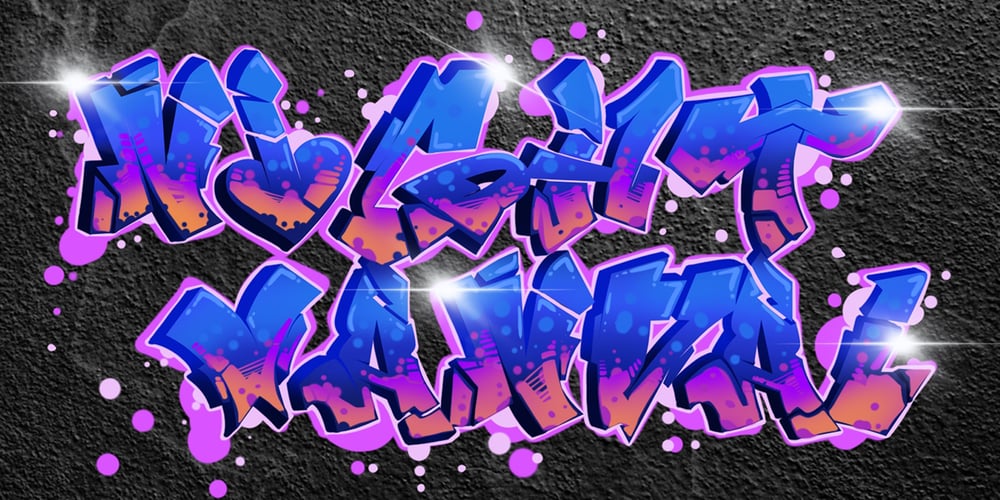
NIghtvandals
NIghtvandals font
NIghtvandals Font Family was designed by Sipanji and published by Sipanji21. NIghtvandals contains 1 styles and family package options. Night Vandal is an awesome graffiti font that features the street art vibe. This font is suitable for designs like logos, advertising, apparel, jerseys, sportswear, skateboard designs and more. Take your concepts to the next level with this stunning font!